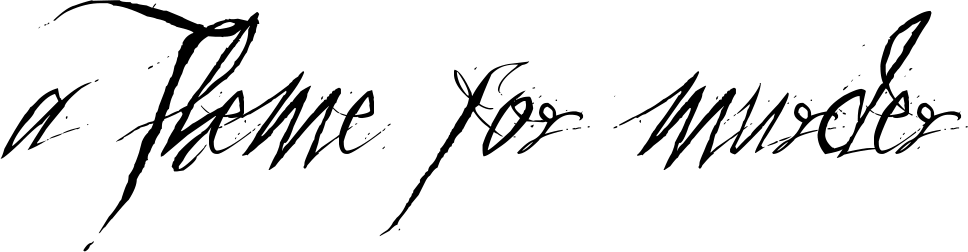
A Theme for Murder Font
Designed byChristopher Hansen
Welcome to the new natural font! Here is a Theme for Murder emo font with a friendly and handwritten design that looks like it was created by playing a harsh inky brush tool on paper. This font can be a perfect option for any titles, quotes, logos, posters, t-shirts, or others when you desire to add an artistic look to your graphic design. Get it and enjoy!